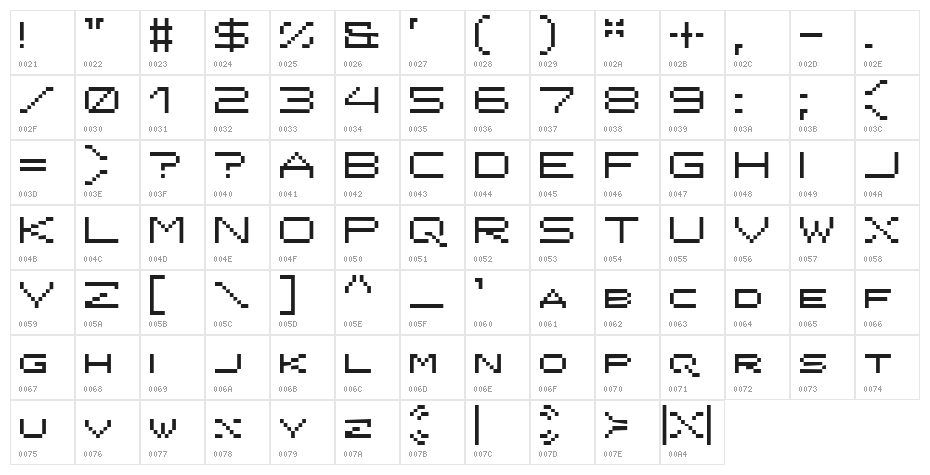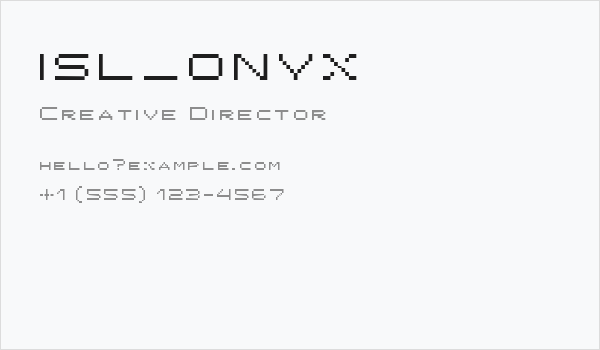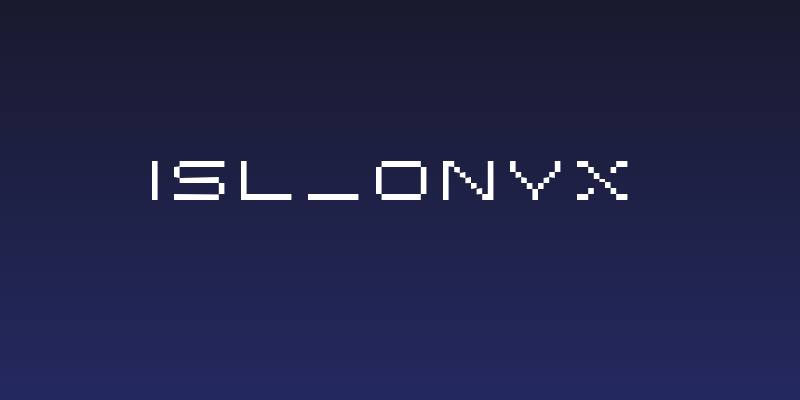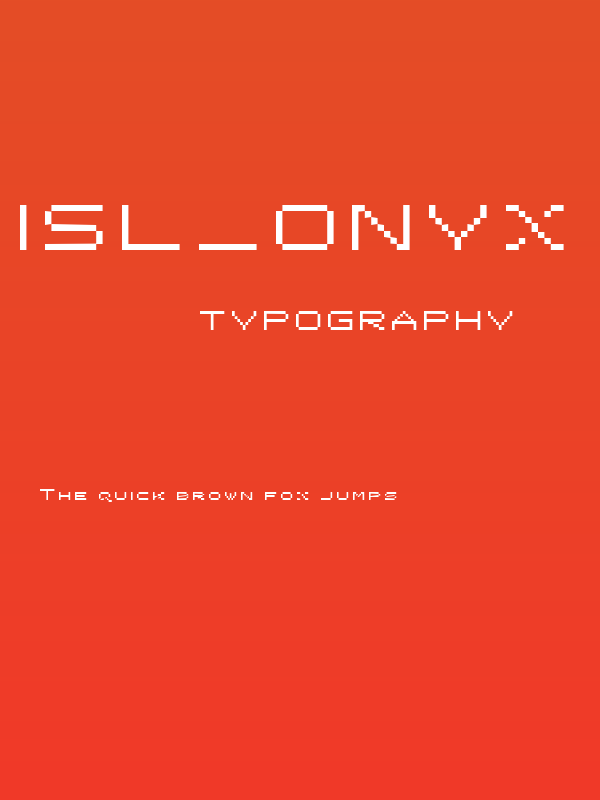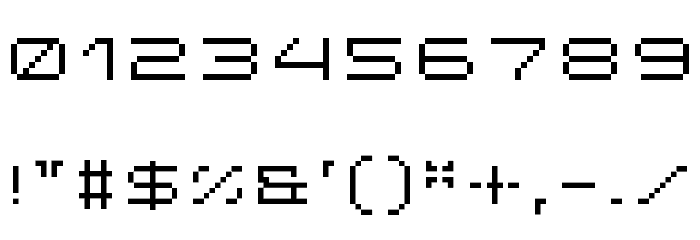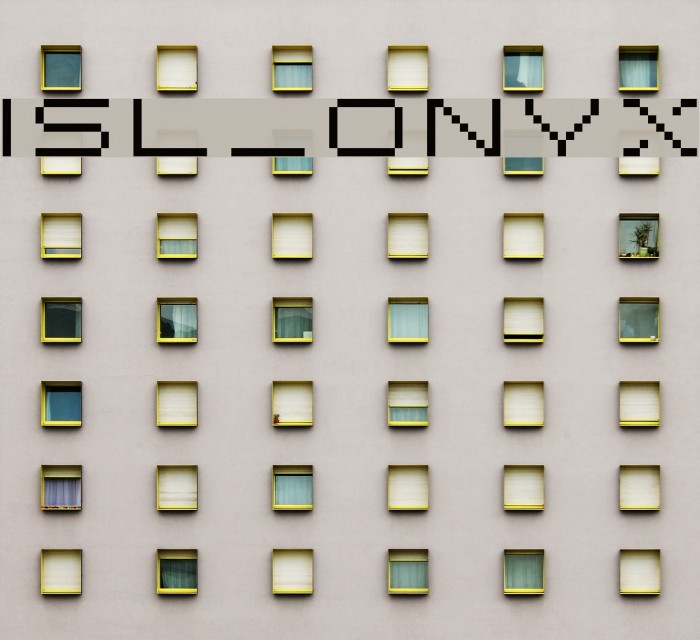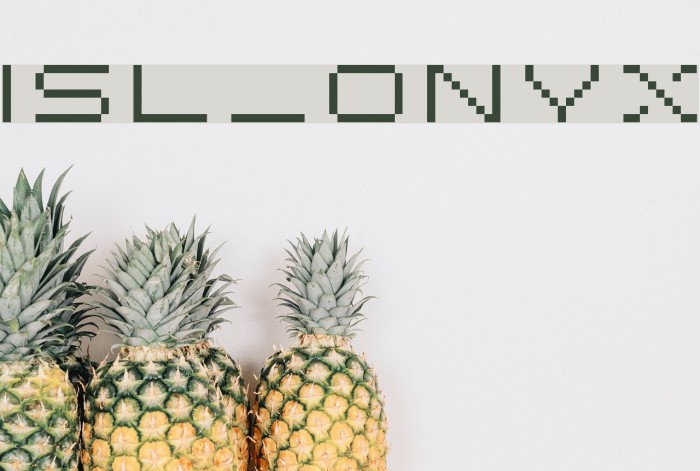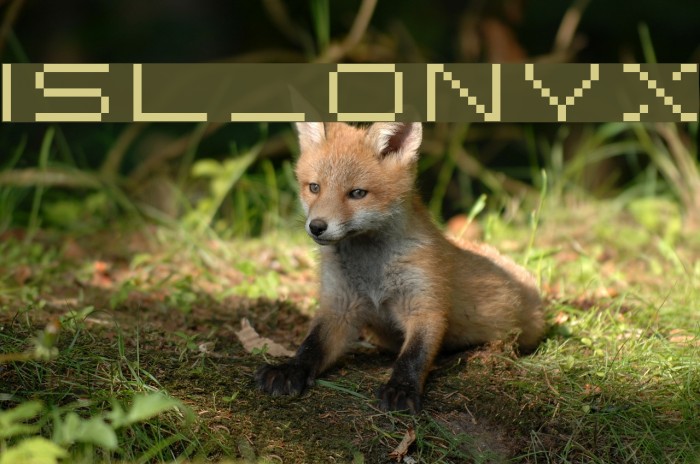
ISL_ONYX Font
ISL_ONYX Description
This font features a pixelated, grid-like design that evokes a retro, digital aesthetic reminiscent of early computer graphics and video games. Each character is constructed with a uniform square grid, giving it a blocky, geometric appearance. The uppercase and lowercase letters maintain a consistent height and width, contributing to a monospaced feel. The numerals and special characters follow the same design principles, ensuring a cohesive look across all glyphs. This font's unique style makes it particularly suitable for projects that aim to capture a vintage digital or tech-inspired theme.
| Use Case | Logos, Headlines, Digital Art |
| Proposed Projects | Ideal for video game design, tech-themed posters, digital art projects, and retro-style branding. |